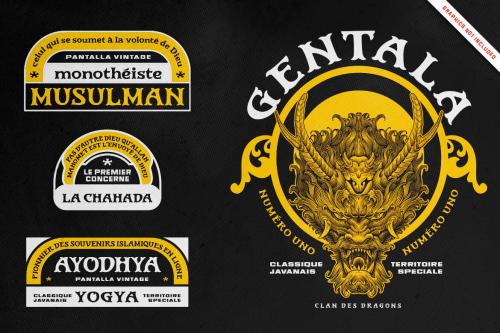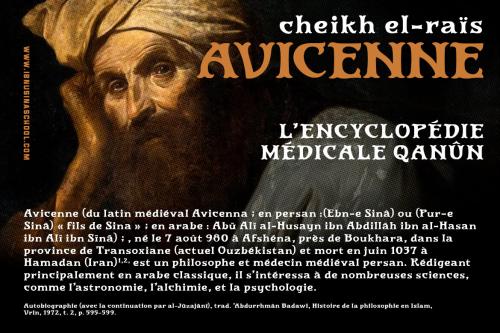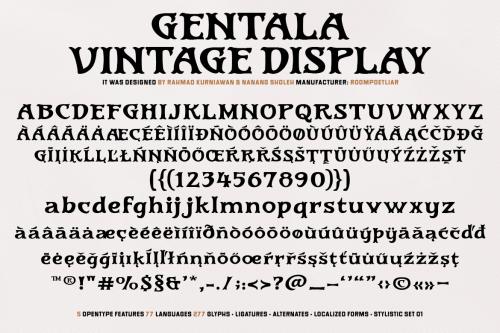
Deeezy - Gentala Vintage Display Font
Vintage Display Font. Vintage font with a well-balanced contemporary, fancy, unique, and versatile vintage serif font. It is a serif display font suits best for branding projects, logos, wedding designs, social media posts, advertisements, product packaging, product designs, label, photography, watermark, invitation, stationery, Religion events, signage board, and any projects. It makes with a high level of legibility.